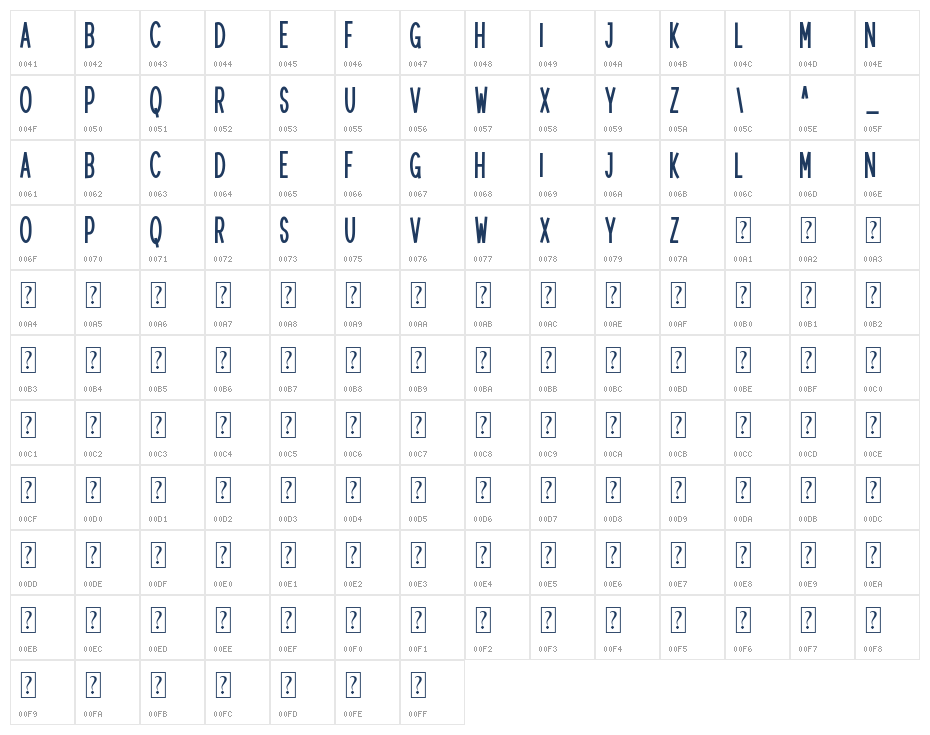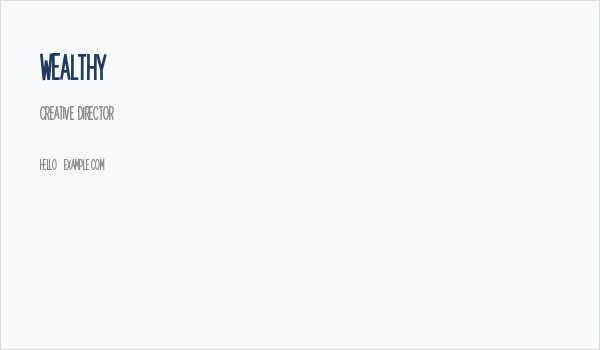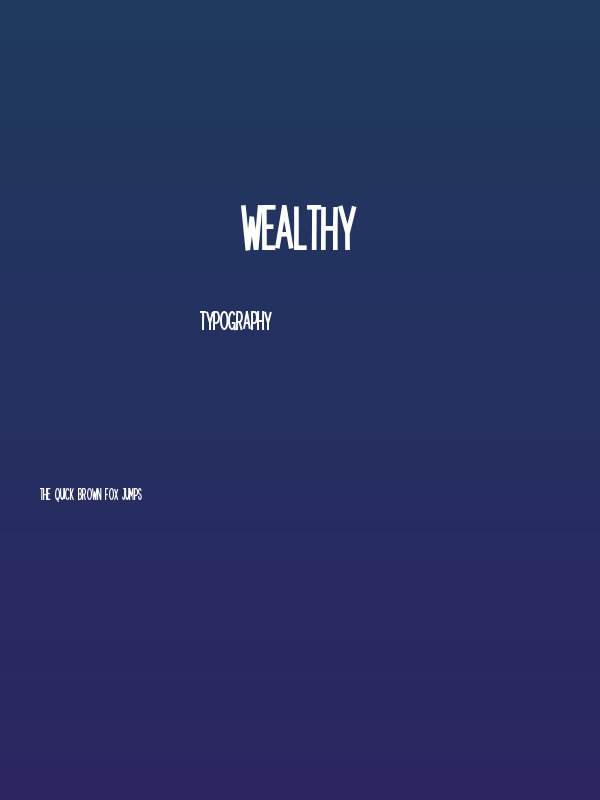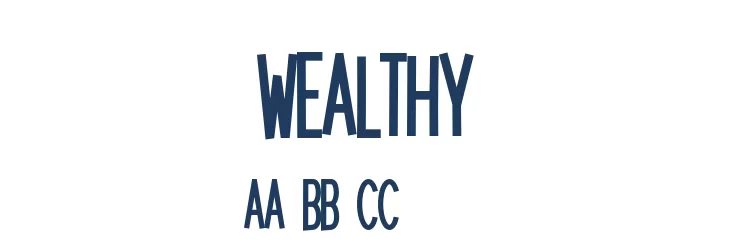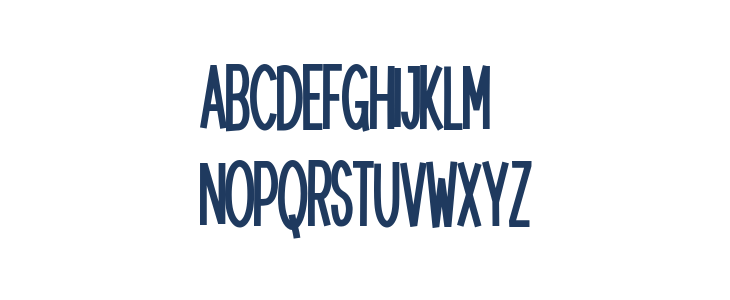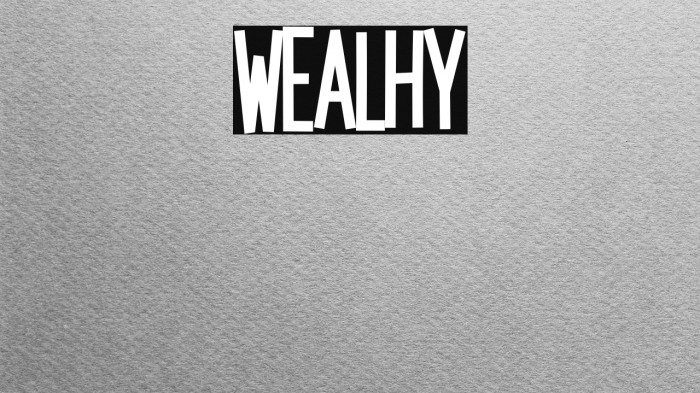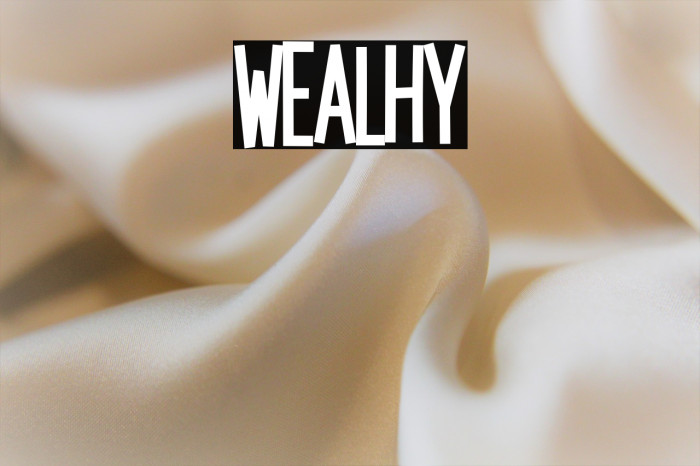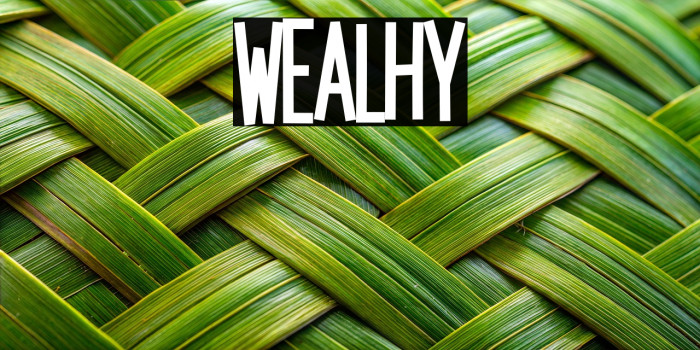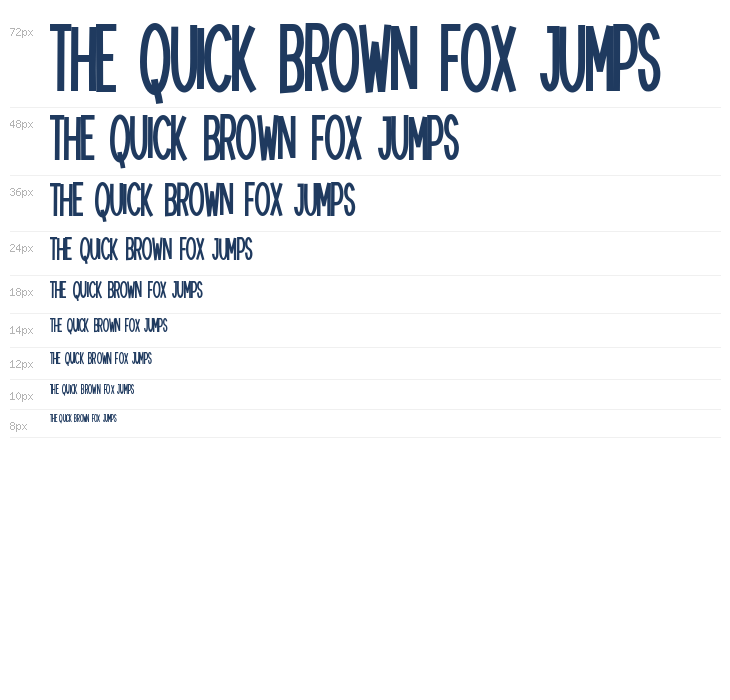
Wealthy Font
Wealthy Description
A playful, slightly irregular sans-serif font with a casual, handwritten feel. The characters are tall and narrow with varying stroke widths, giving it a dynamic and informal appearance.
| Overall Style | Casual, Handwritten, Playful |
| Use Case | Headlines, Logos, Children's materials, Creative projects |